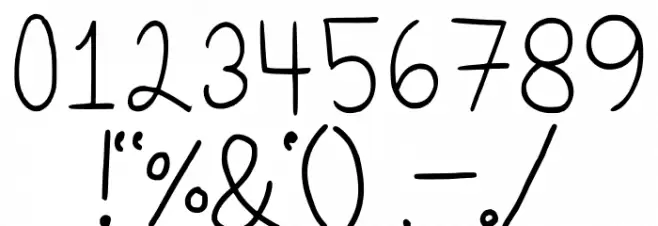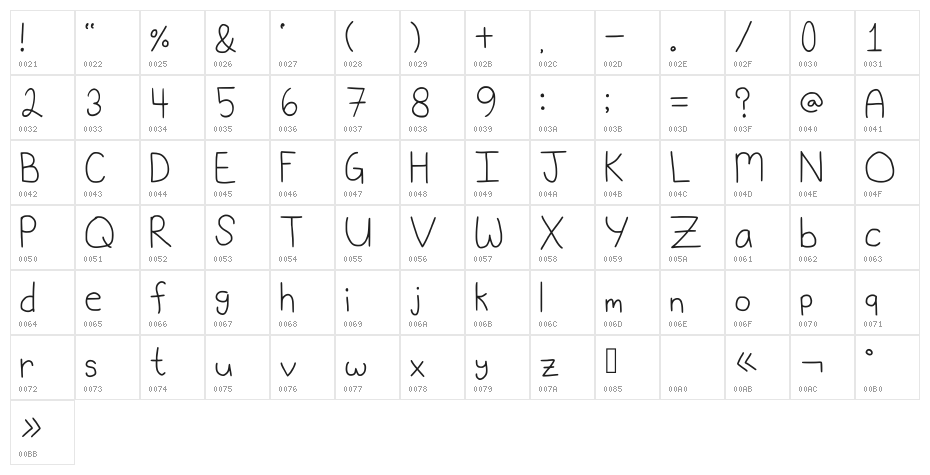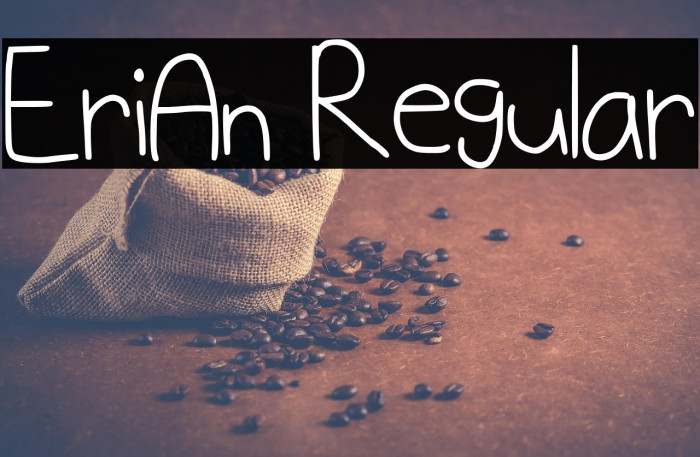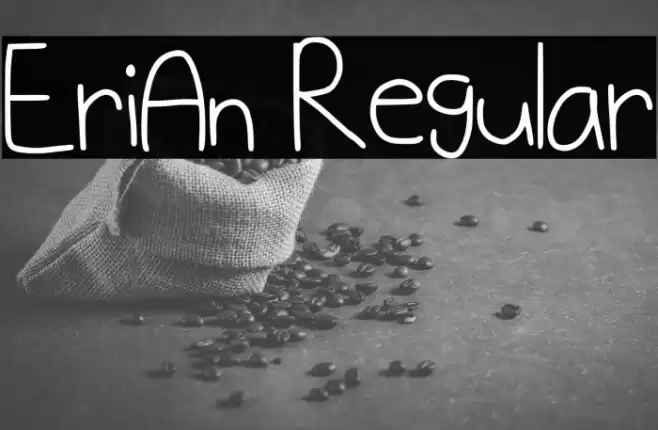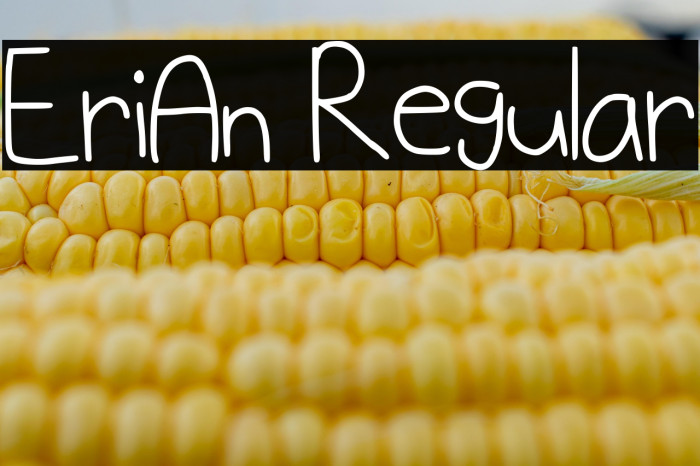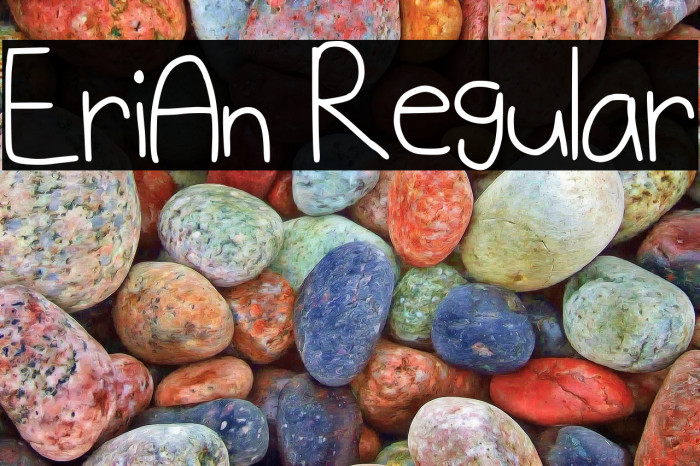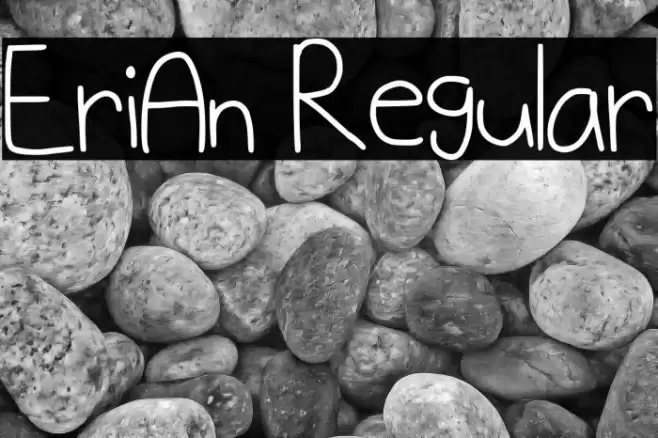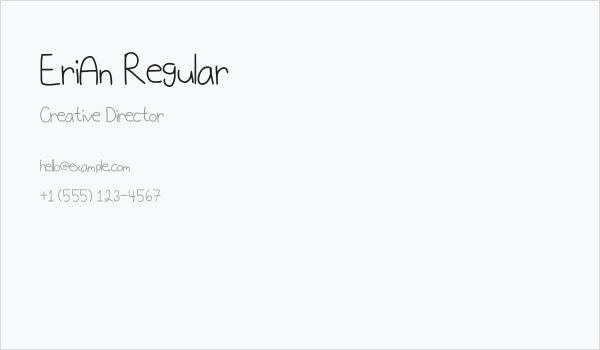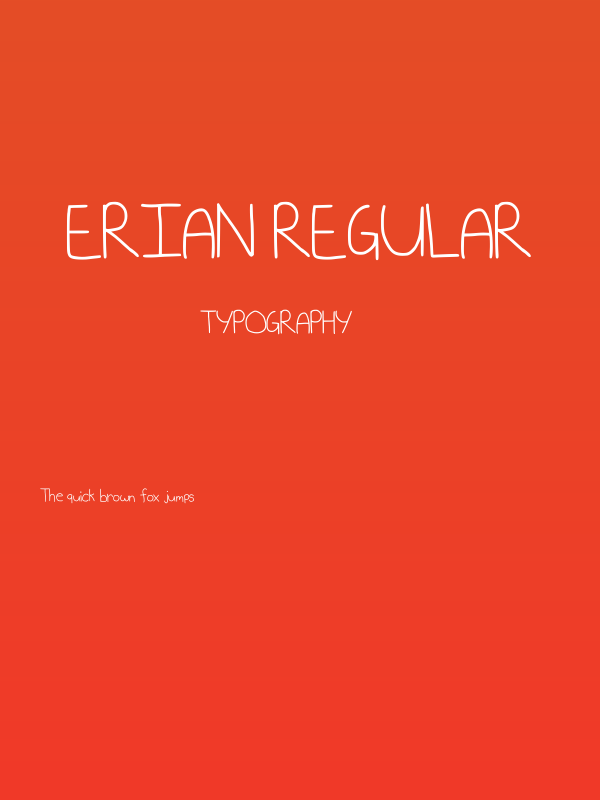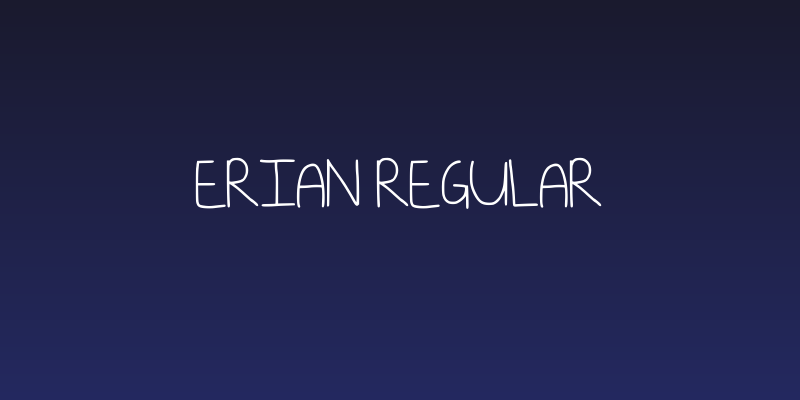
EriAn Regular Font
EriAn Regular Description
This font features a playful and informal handwritten style, characterized by its smooth and flowing curves. The letters are slightly irregular, giving it a casual and friendly appearance. The uppercase and lowercase letters maintain a consistent style, with rounded edges and a slight tilt that adds to its whimsical charm. The numerals and special characters follow the same design principles, ensuring a cohesive look across all characters. This font is ideal for projects that require a personal touch, such as invitations, greeting cards, or children's book illustrations.
| Proposed Projects | Ideal for invitations, greeting cards, children's books, and informal branding. |